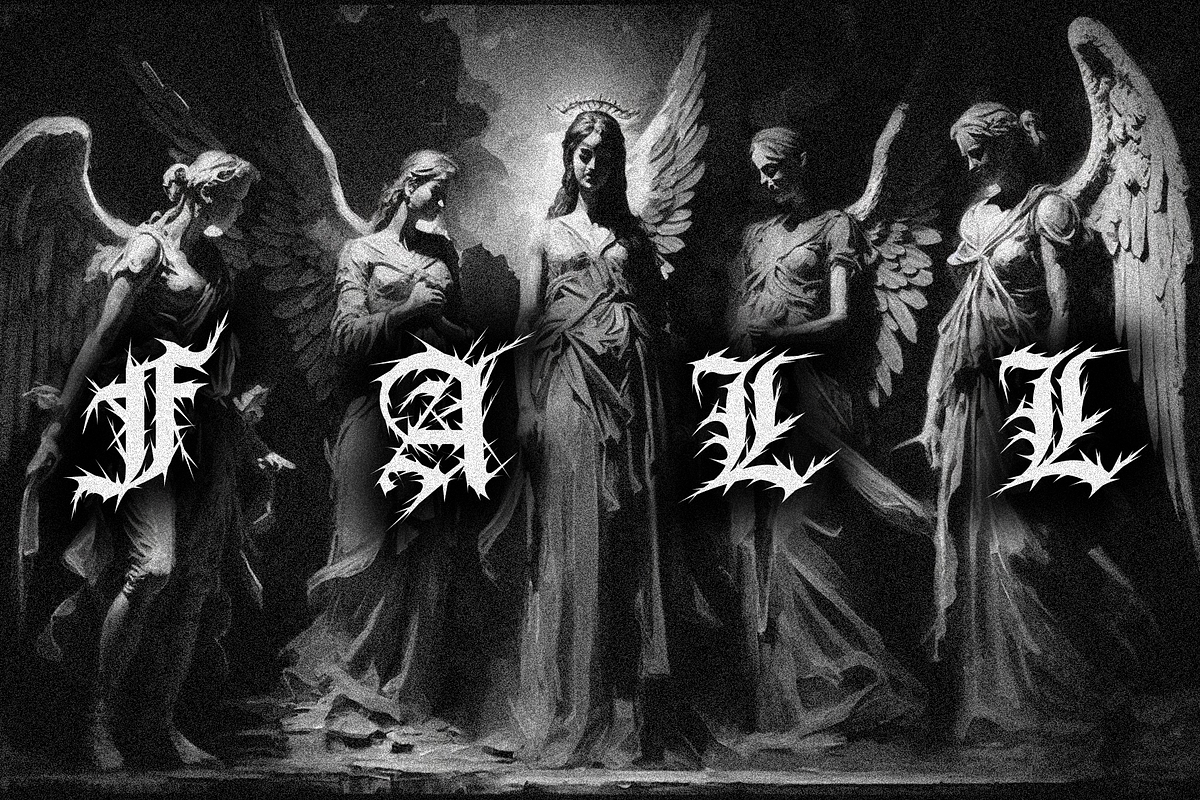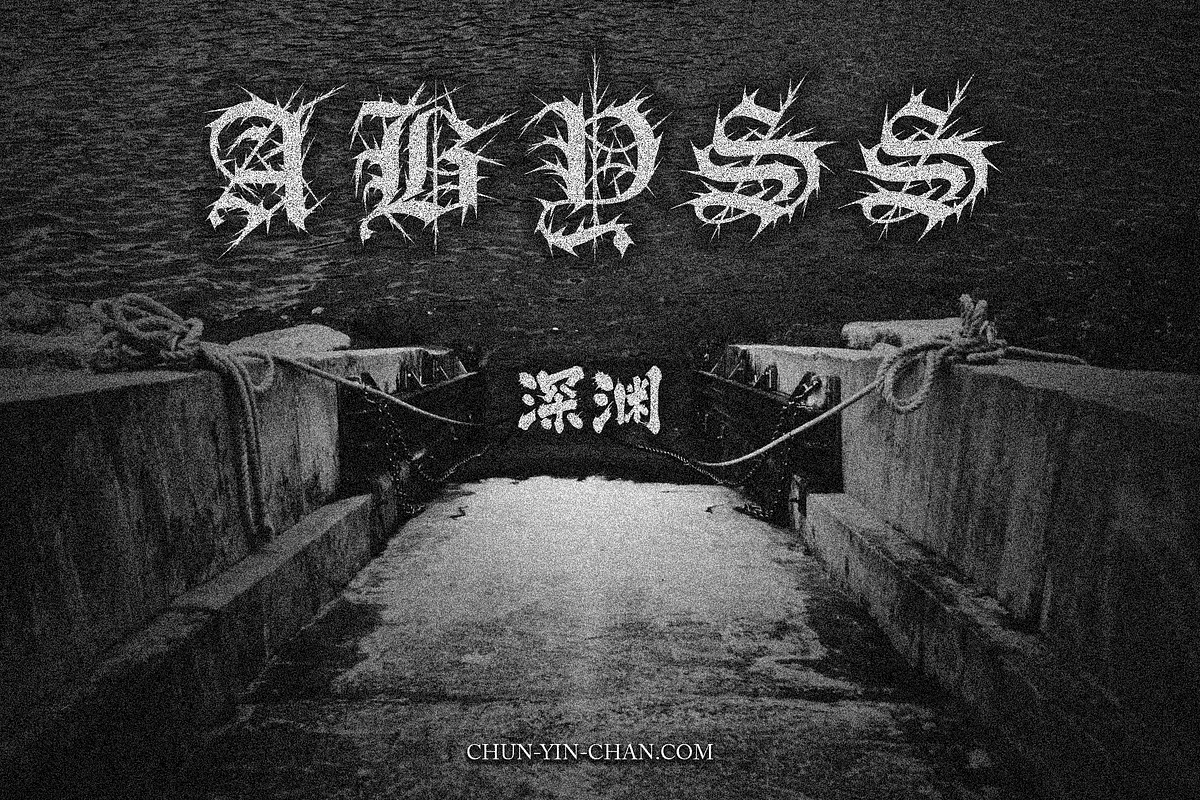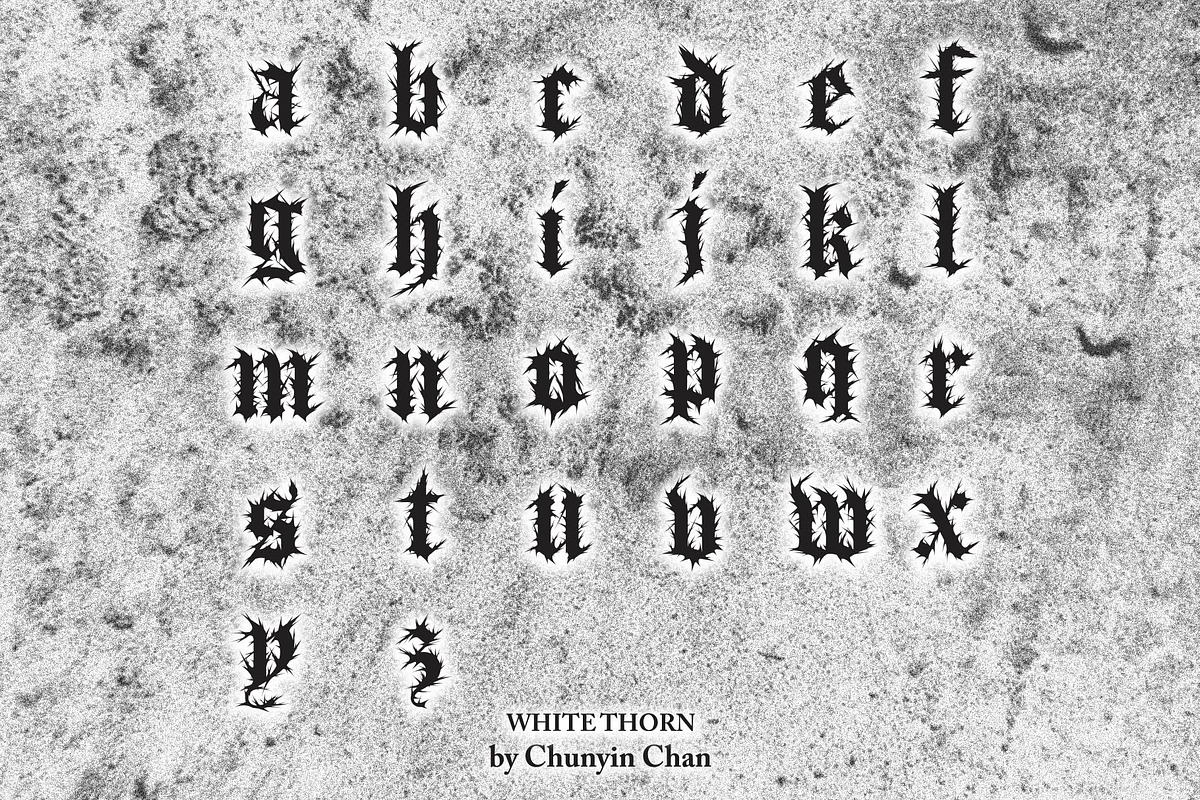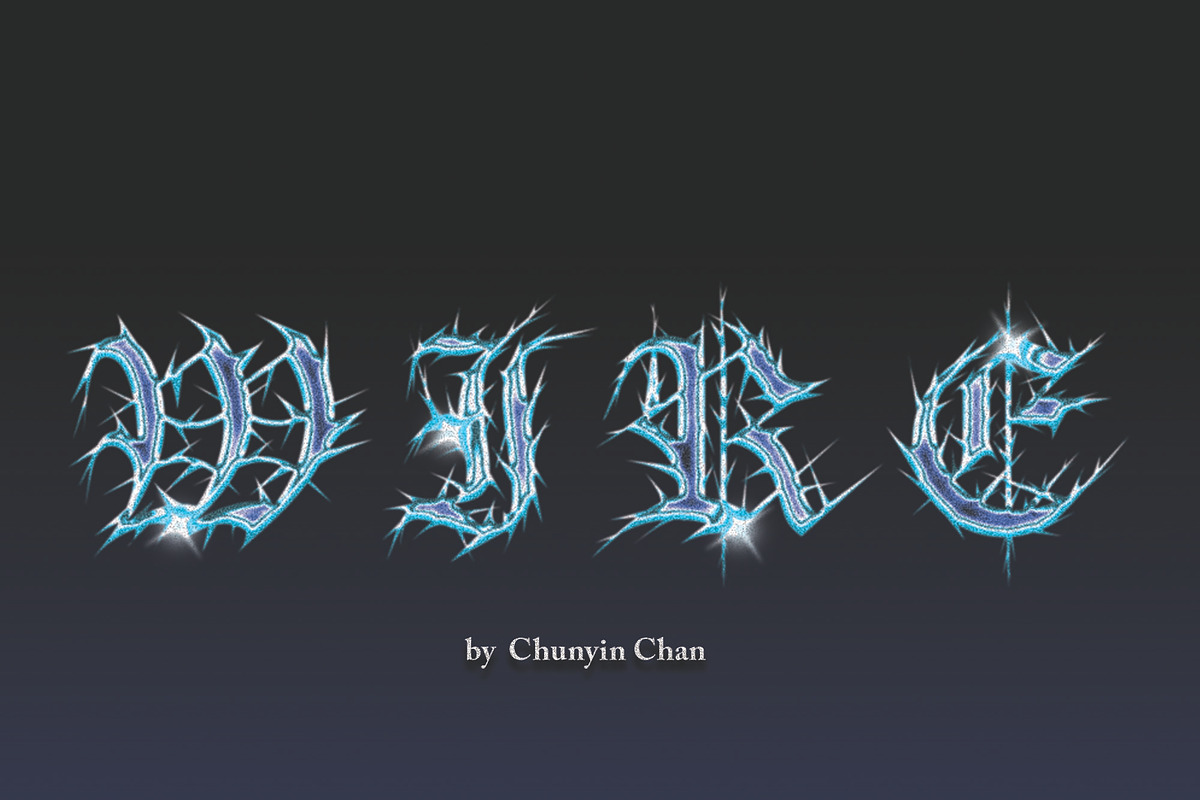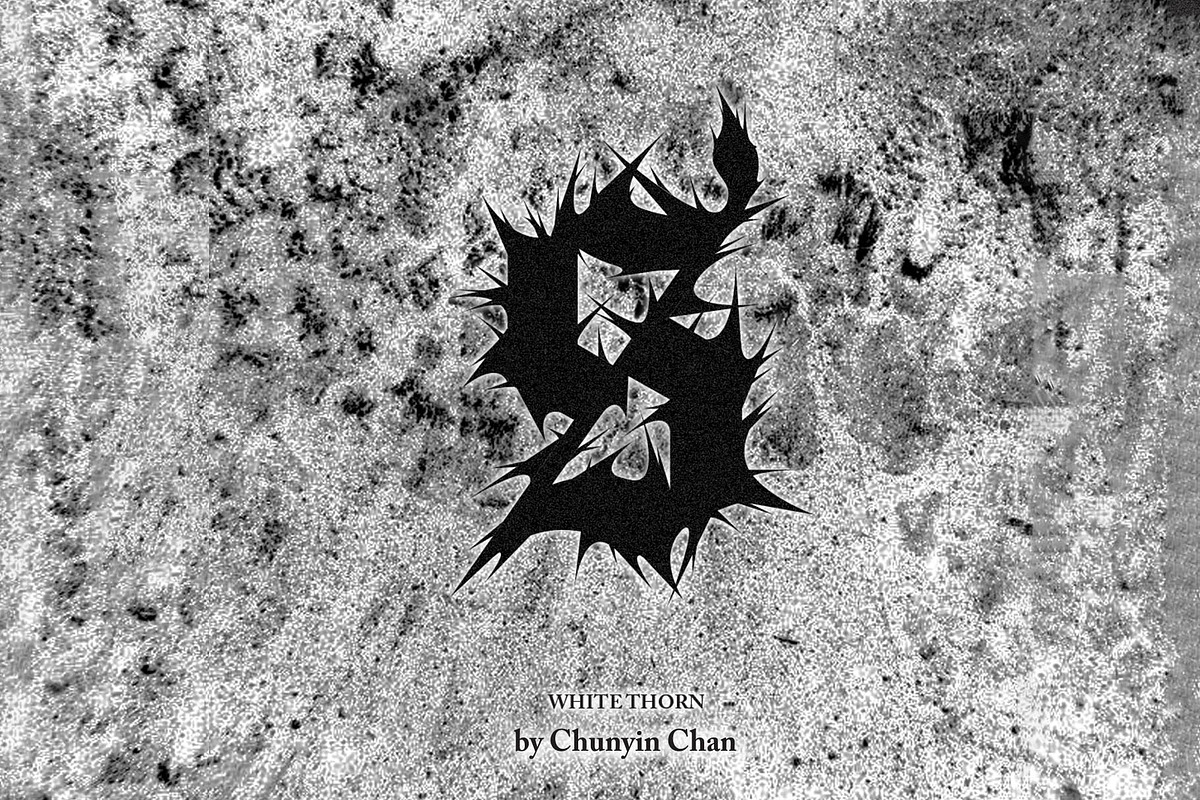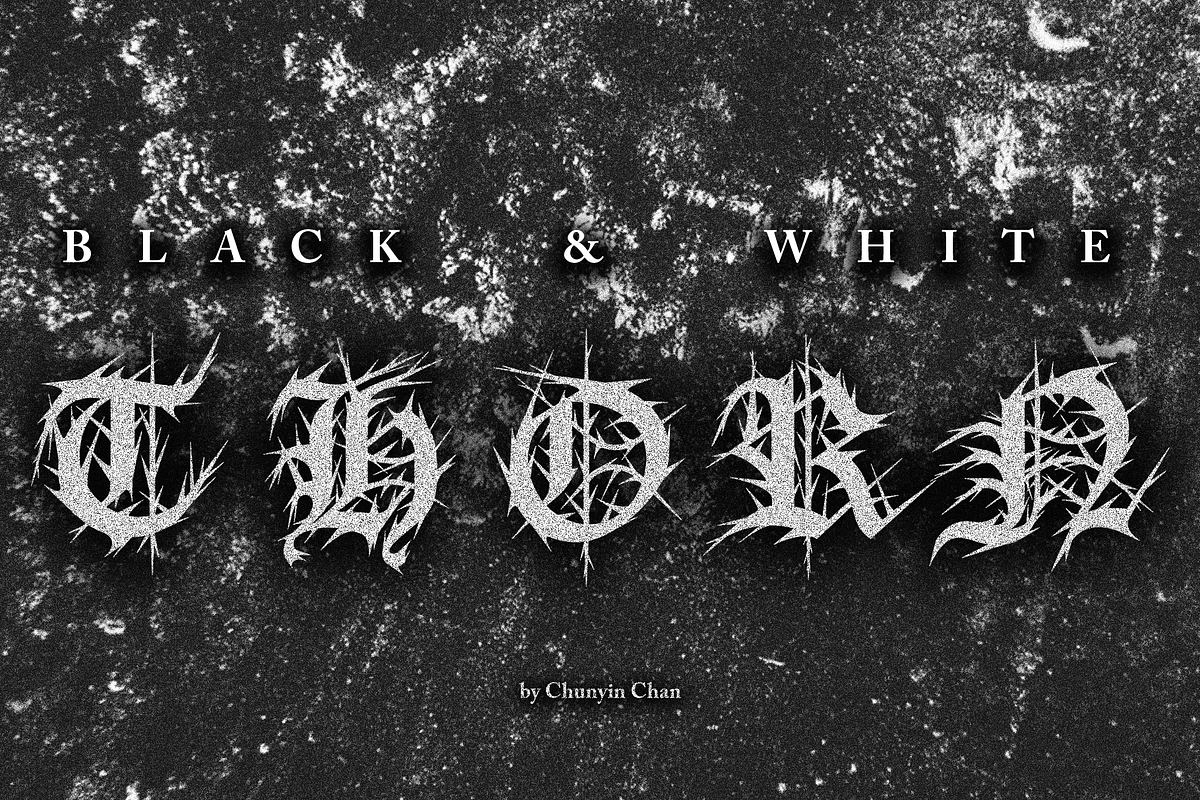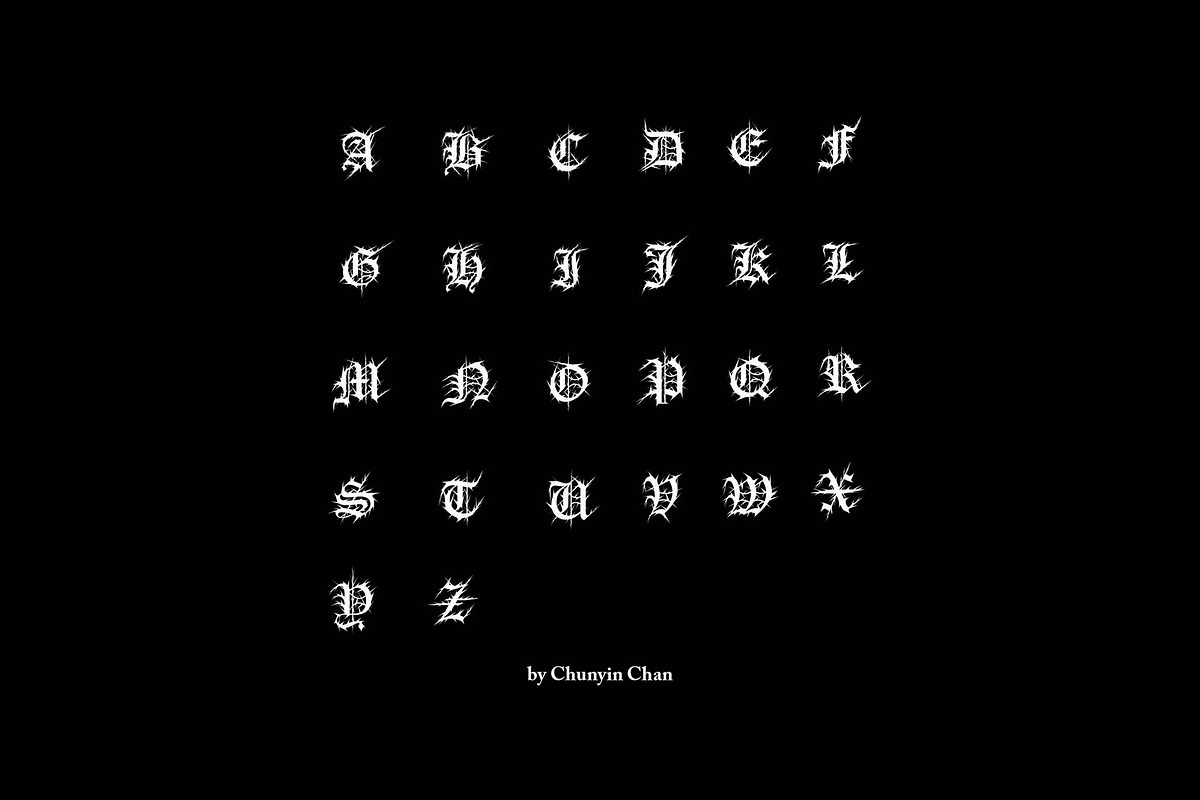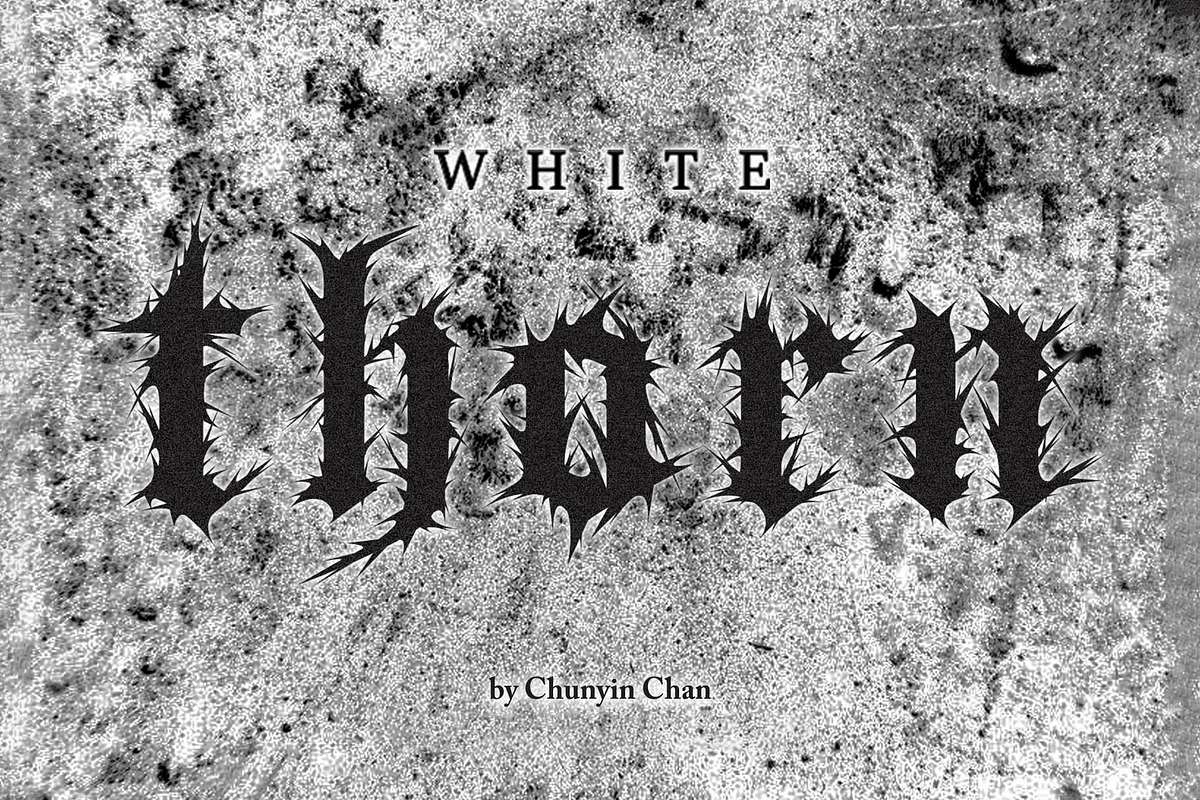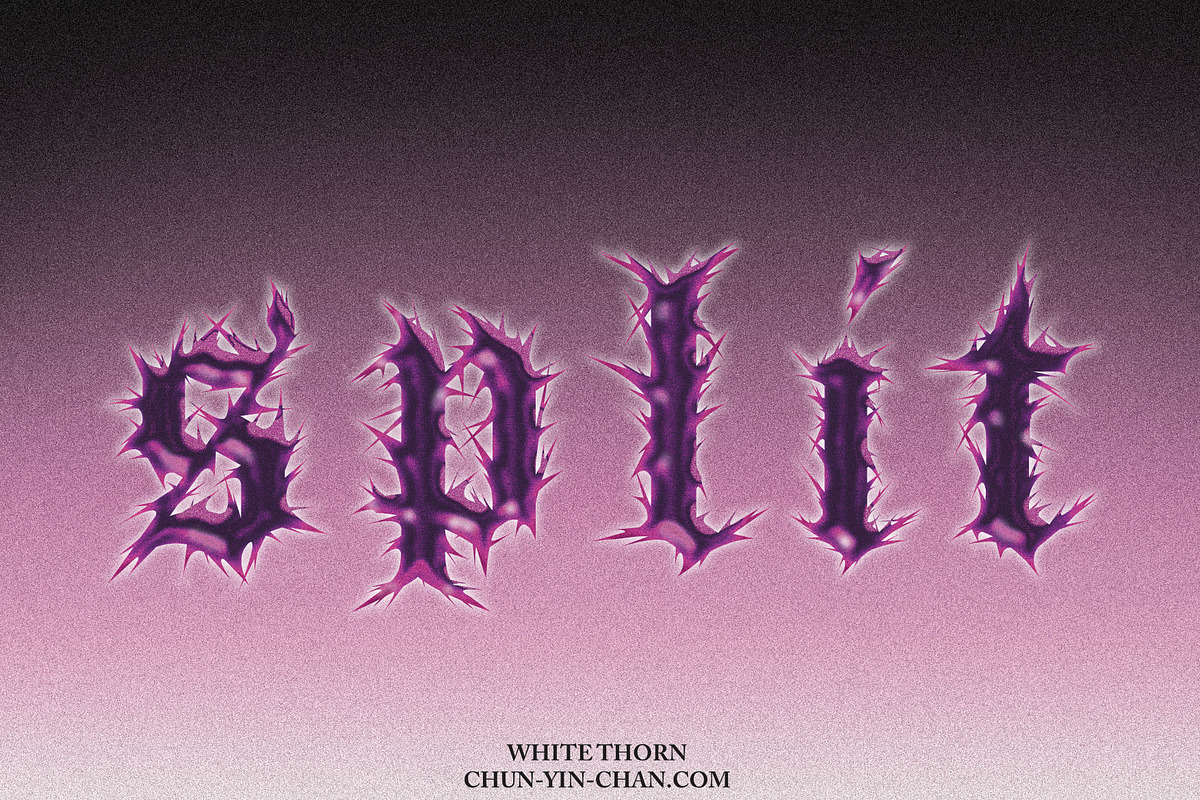
Black & White Thorn
Introducing "Black & White Thorn" - a powerful and unique font that seamlessly blends Old English Gothic script with Modern Black Metal spike design. This font is perfect for those who want to add a touch of edginess to their designs while maintaining a classic feel.
The strong structure of "Black & White Thorn" is defined by its thin, fine spiky outline. The font is available in OTF, TTF, and WOFF formats, ensuring that it can be used across multiple platforms. It contains both upper and lower case letters, as well as numbers and symbols, giving you the flexibility to create a wide variety of designs.
"Black & White Thorn" is incredibly versatile and can be used in a variety of modern designs, ranging from product labels to tattoos, badges, logos, poster titles, and much more. Whether you're looking to create a bold and impactful design or something more subtle, this font is sure to make a statement.
With its unique combination of Old English Gothic script and Modern Black Metal spike design, "Black & White Thorn" is the perfect font for anyone looking to add a touch of style and edge to their designs. Get it now and start creating stunning designs that will leave a lasting impression.